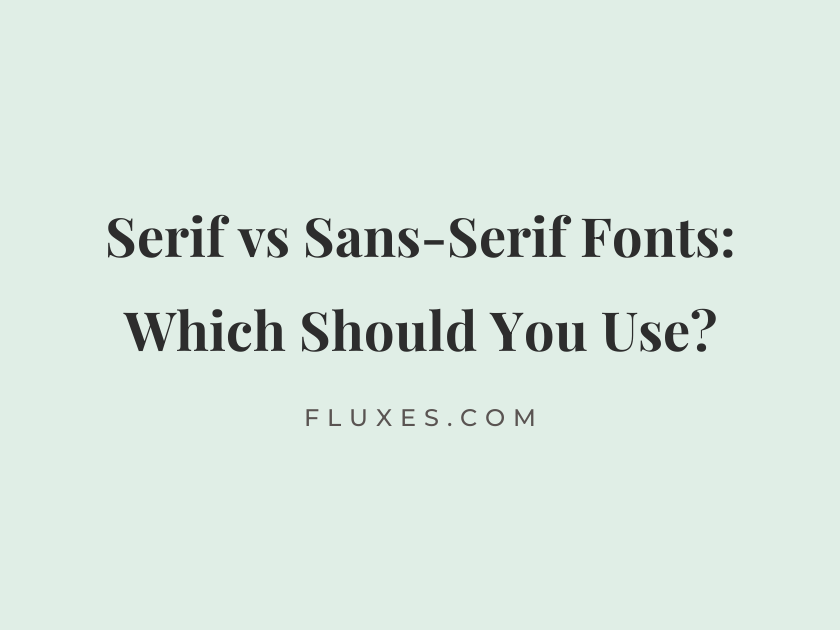
15 Serif vs Sans-Serif Fonts: Which Should You Use?
The serif versus sans-serif debate shows up in every design brief, from editorial layouts to app interfaces, and the honest answer is that both camps hold excellent free options depending on tone, medium, and reading context.
Serifs tend to carry a sense of history, authority, and warmth, useful for long-form text and print-like sophistication.
Sans-serifs lean cleaner and more neutral, favored for interfaces, small text on screens, and a contemporary feel.
Serif fonts:
Elegant headlines deserve a serif with contrast
High-contrast strokes and a sharp, fashion-editorial personality make this a favorite for titles and pull quotes rather than body copy. It reads best large, where its delicate hairlines can actually breathe; shrink it too far and the thin strokes go faint. Pair it with a plain sans body font for a classic magazine feel.
Built for comfortable reading, paragraph after paragraph
Merriweather was designed specifically for screens, with sturdy letterforms and generous spacing that hold up at body text sizes. It is a dependable answer for anyone searching for free serif fonts that actually work in long articles rather than just headlines.
A gentle serif for stories, essays, and letters
Lora has a slightly calligraphic warmth without tipping into decorative territory, which makes it a favorite for blogs and personal essays. It sits comfortably between traditional and modern, so it rarely feels out of place next to either an ornate serif headline or a clean sans-serif interface.
Timeless typesetting inspired by old-world printing
Rooted in the classic Garamond tradition, this one carries centuries of book-printing heritage into a free, web-ready package. It suits scholarly writing, literary layouts, and anywhere a project wants restrained elegance instead of loud personality.
Sturdy serif letters made for interfaces and print
PT Serif was built as part of a matching serif-and-sans superfamily, so it pairs naturally with PT Sans when a project needs both a headline face and a workhorse body font from the same design language. It reads cleanly at small sizes, which is not something every serif can claim.
Refined, slender type for luxury and invitations
This is a display serif first and a body font only in special cases; its slim, jewelry-like strokes shine on invitations, cover pages, and fashion branding. At paragraph sizes it turns thin and hard to read, so keep it for moments that call attention rather than dense text.
A slab serif steady enough for screens
Bitter brings slab-serif sturdiness with rounded, screen-friendly proportions, landing somewhere between a traditional serif and a display face. It has enough character for headings but stays composed enough to use in body copy too.
Geometric slab serif with a modern, technical feel
Where most slab serifs lean vintage, Roboto Slab keeps a mechanical, geometric structure that feels current and neutral. It works well for technical documentation, product pages, or anywhere a serif is wanted without any old-fashioned flavor.
Sans-serif fonts:
Clean, legible type built for user interfaces
Inter was engineered for screens and UI text, with tall x-heights and careful spacing that keep it sharp at tiny sizes. It has become something of a default choice for product design and dashboards, and for good reason: it is hard to find a context where it looks out of place.
Practical and friendly, made for everyday reading
Work Sans was optimized for medium screen sizes and general-purpose text, giving it a slightly warmer, more approachable feel than strictly geometric sans fonts. It works equally well in a website body, a slide deck, or a simple business document.
Bold geometric shapes for confident, modern headlines
Inspired by early twentieth-century urban signage, Montserrat has rounded geometric forms that read as clean and assertive rather than cold. It is a common substitute for paid geometric sans families like Futura or Proxima Nova, and it holds up nicely as both a headline and a subheading font.
Friendly geometric letters with a rounded personality
Poppins leans playful thanks to its near-perfect circular letterforms, giving it an approachable, slightly informal tone. It suits startups, apps, and casual branding more than it suits serious editorial or corporate work, where its roundness can feel a touch too soft.
Soft, rounded sans for a calm, modern voice
Nunito Sans softens its edges just enough to feel friendly without losing the crispness needed for body text. It has a understated, well-mannered quality that suits wellness brands, blogs, and interfaces that want to feel human rather than corporate.
Versatile grotesque type for headlines and data
Archivo covers a wide range of weights and widths in one family, making it flexible enough to handle everything from a hero headline to a dense data table. Its grotesque structure feels neutral and contemporary, closer in spirit to Helvetica than to anything decorative.
For interfaces, apps, and dashboards, a sans-serif such as Inter almost always performs better at small sizes.
A common and effective pattern is mixing the two: a serif headline over a sans-serif body, or the reverse for a more editorial-meets-modern look.
When in doubt, test both at the actual size and device your readers will use, since legibility problems rarely show up in a large mockup.